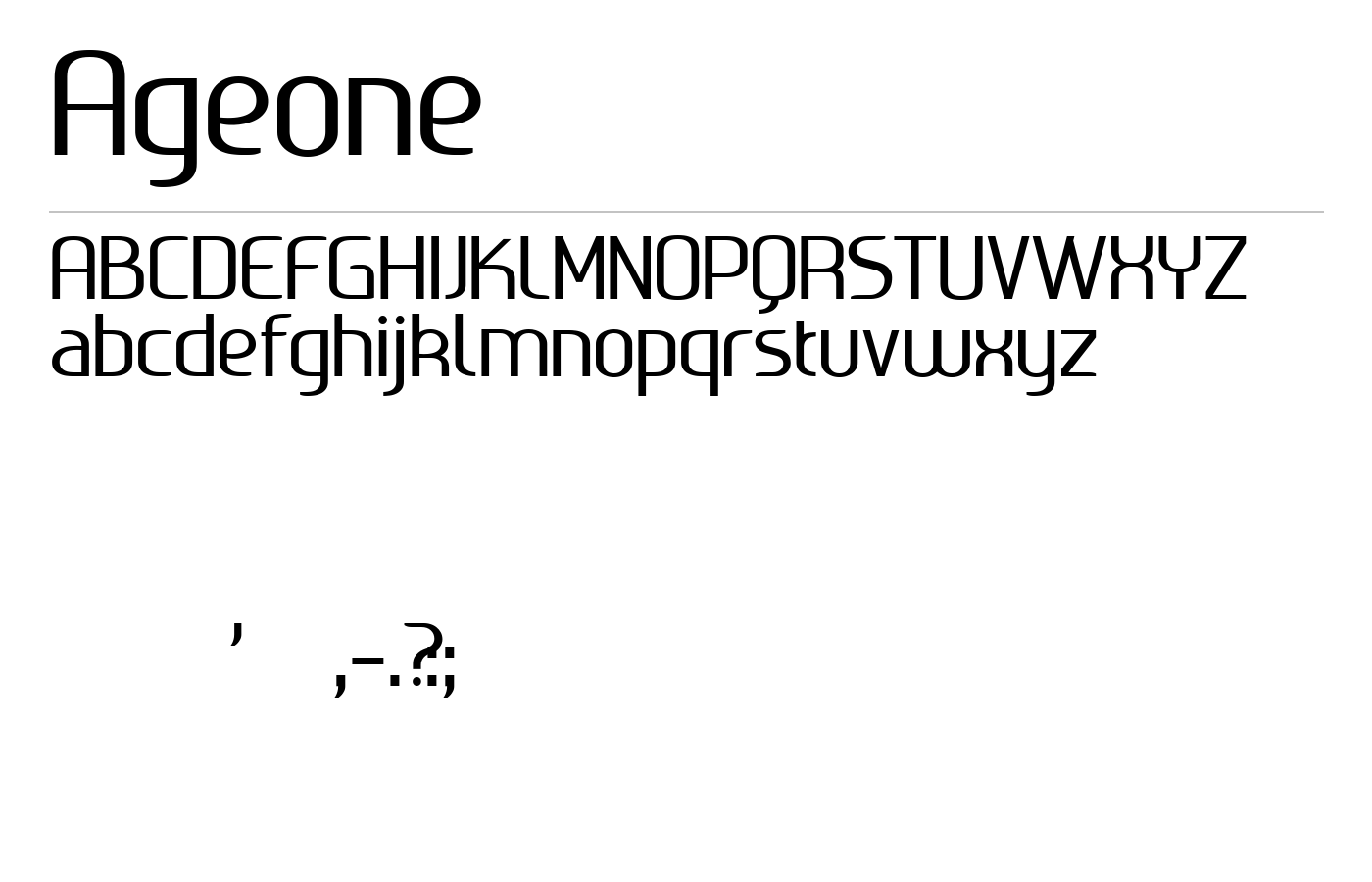
Ageone is a sleek, modern sans-serif font characterized by its narrow, clean lines and a moderate x-height that creates a balanced and elegant look. Its unique geometric letterforms, including distinctive single-story ‘a’ and ‘g’, combined with consistent stroke weight and subtle curves, give it a contemporary, tech-savvy feel ideal for stylish branding, editorial use, and digital interfaces seeking a refined yet approachable aesthetic.
Ageone Font